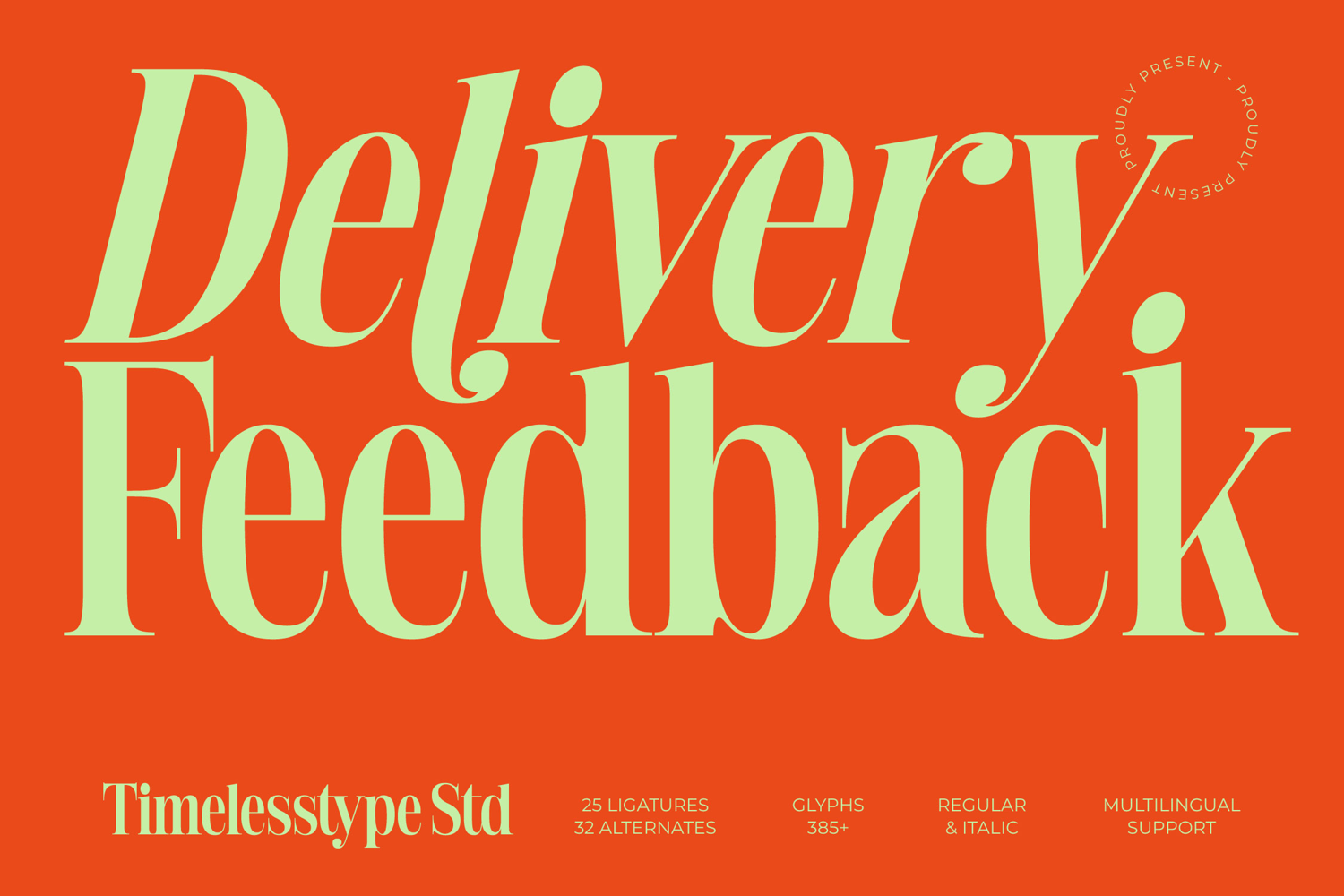
Delivery Feedback - Modern Serif Font
Delivery Feedback
Delivery Feedback Italic
Delivery Feedback - Modern Serif Font is a stunning, high-contrast typeface designed to imbue any project with unforgettable sophistication. Its dynamic letterforms merge classic serif foundations with contemporary flair, featuring sharp, refined serifs and dramatically varying strokes. This bold aesthetic choice, particularly the exaggerated curves in the italic variant, ensures your titles and display text possess both authority and grace.